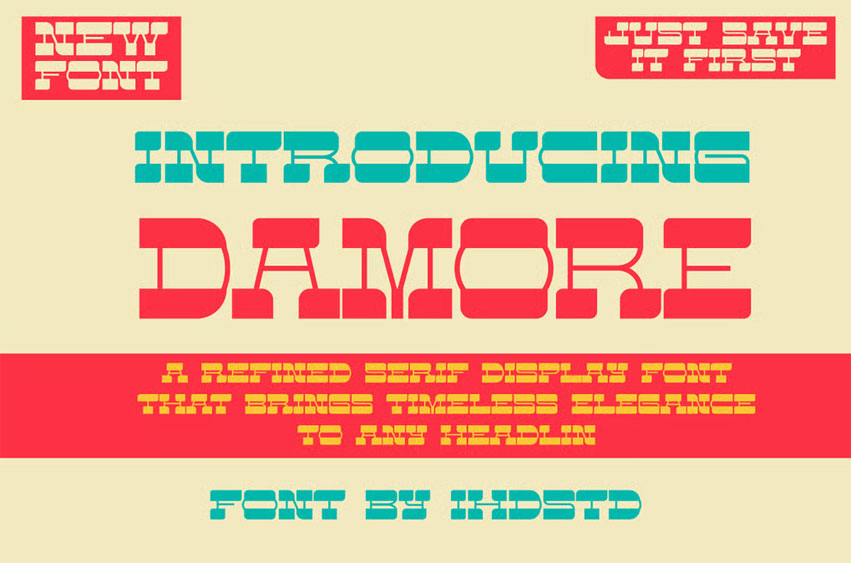
Damore Font
Damore Font Serif Display Font is a luxurious and elegant typeface perfect for high-end design projects. Its delicate curves, high contrast, and sharp serifs evoke a sense of sophistication and timelessness.
It excels when used for headlines, logos, magazine layouts, branding materials, and editorial design, where its classic beauty can truly stand out. This font is an ideal choice for fashion, jewelry, beauty, and premium product packaging, looking to convey quality and refinement.